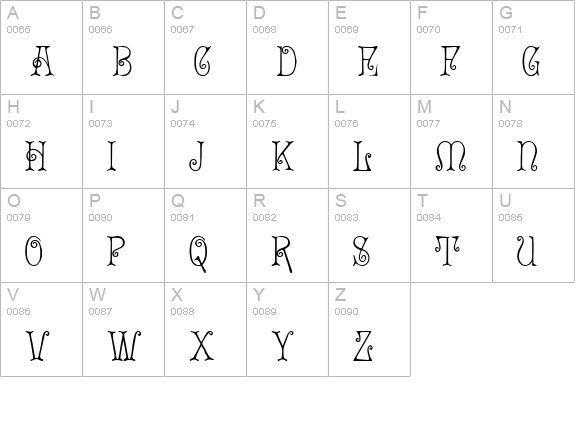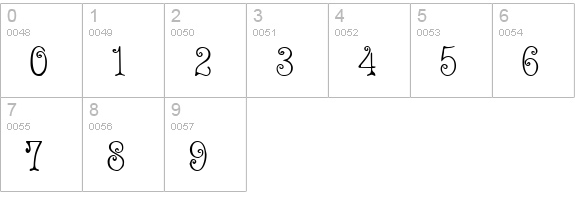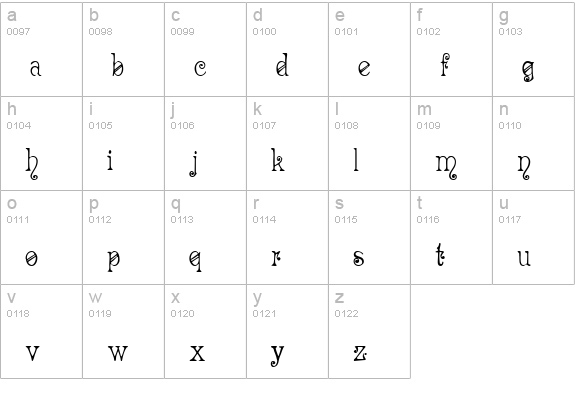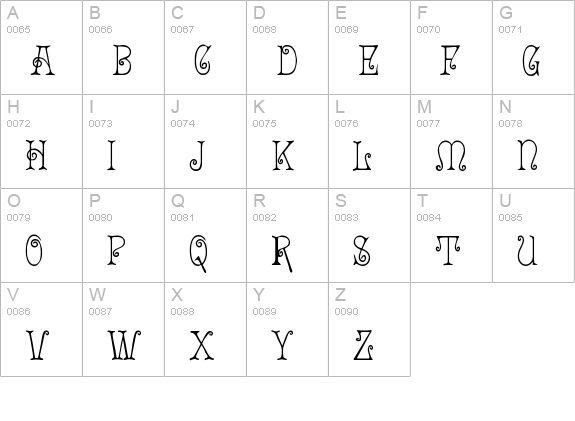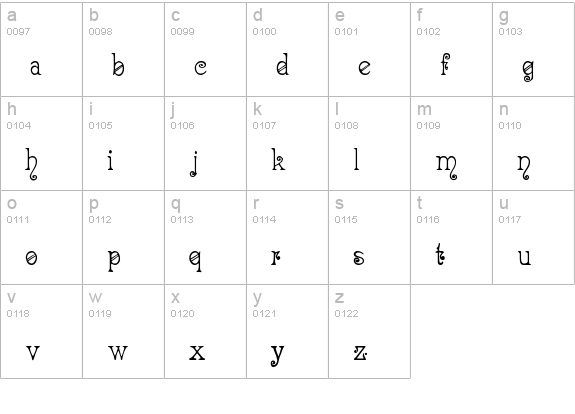
Acadian Font Details
Acadian font is a stunning and sophisticated typeface that exudes elegance and charm. With its sleek lines and classic style, Acadian is perfect for adding a touch of class to any design project. The font features a timeless appeal that is both versatile and eye-catching, making it ideal for a wide range of applications. What sets Acadian font apart is not only its beauty but also its accessibility - it is available for free download at FontsMarket.com. This means that designers and creatives can easily access this exquisite font without any cost, allowing them to elevate their projects without breaking the bank. Whether you're working on a branding project, a website design, or any other creative endeavor, Acadian font is sure to make a lasting impression. Download this exceptional typeface today and bring a touch of sophistication to your next design project.